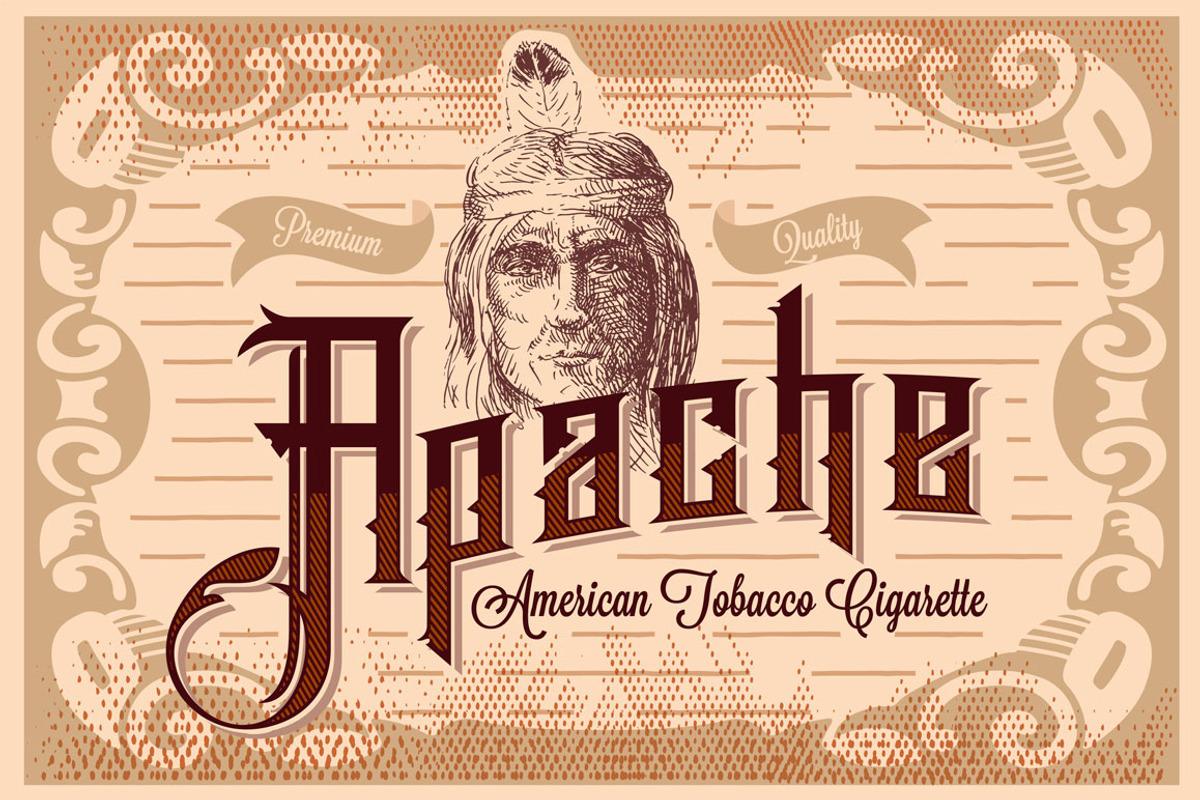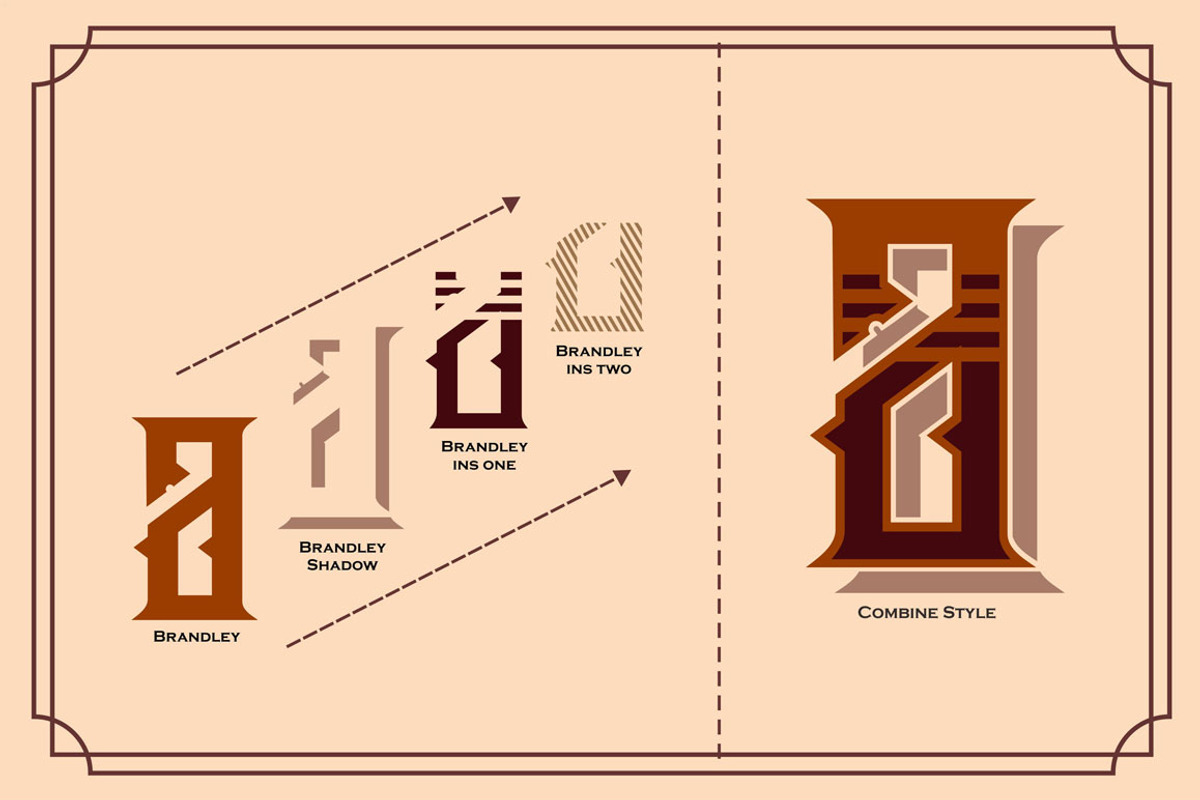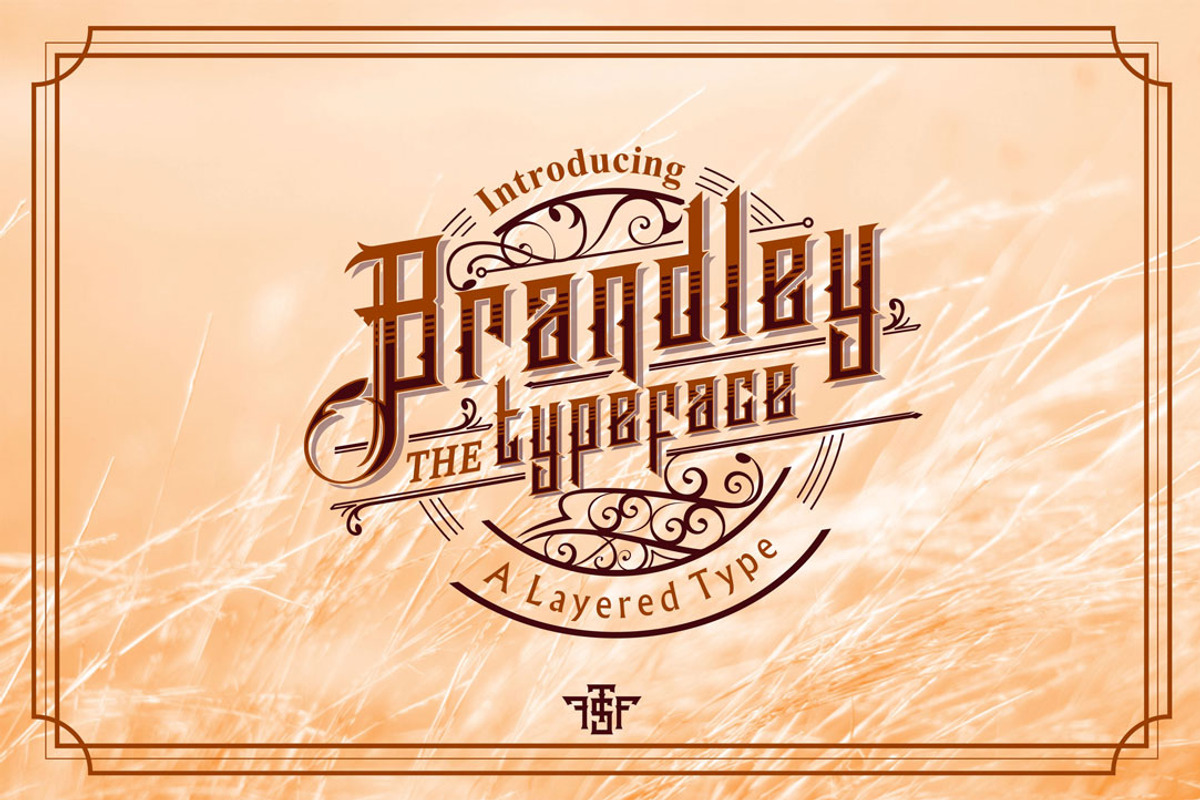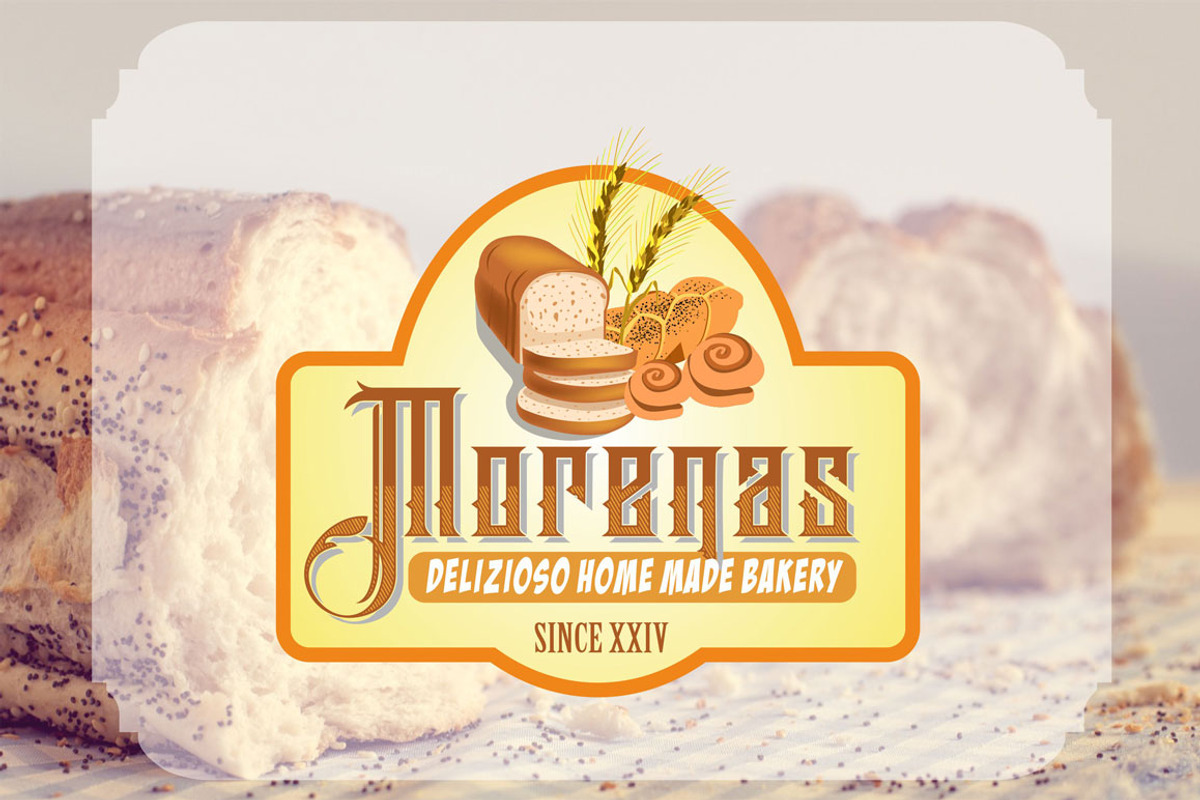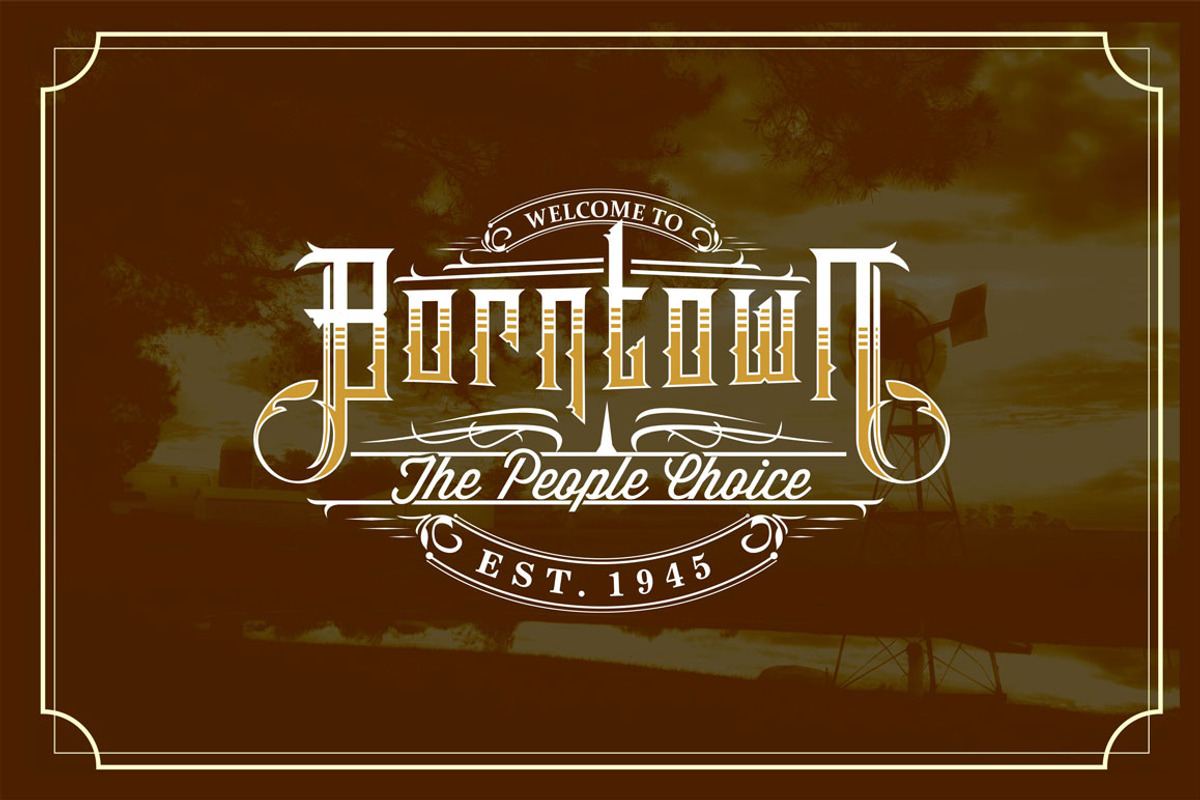
Brandley Typeface
Brandley Typeface by uncurve is a font selected for branding, posters, packaging, typography.
Why Brandley Typeface is worth a look
Brandley Typeface by uncurve fits naturally into Branding, posters, packaging, typography.